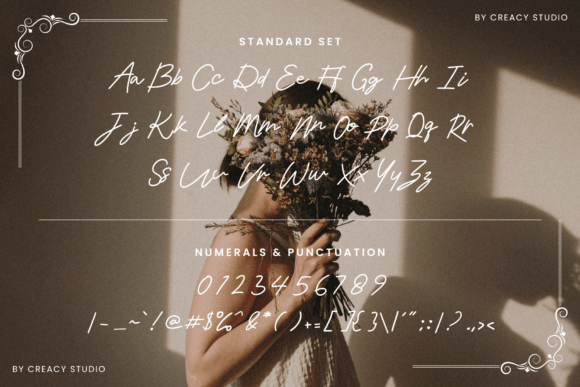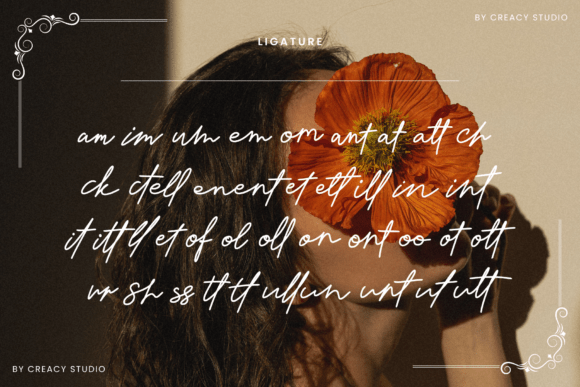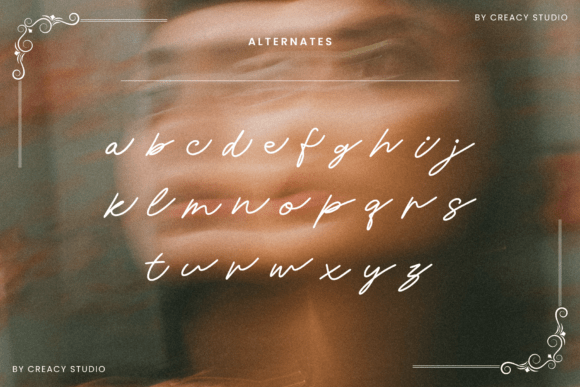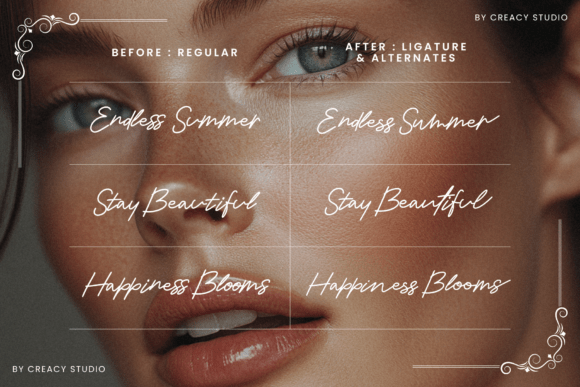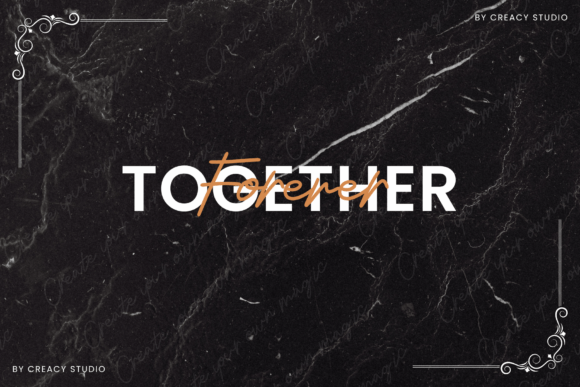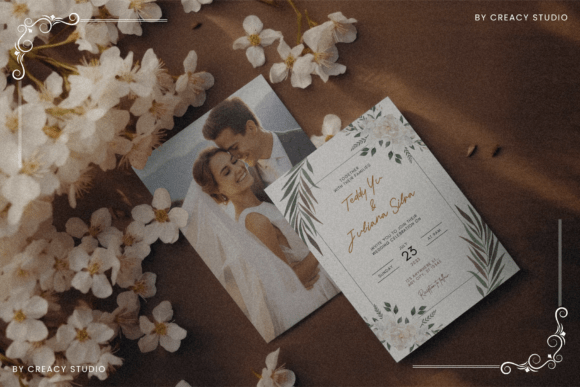
✨ Introduction: Couture Script – Where Elegance Meets Timeless Beauty ✨
Unleash sophistication with Couture Script, a font that embodies grace, style, and effortless luxury. Designed to capture the essence of high fashion and refined elegance, this handwritten script flows seamlessly, making every stroke feel personal and distinctive.
💎 Chic & Sophisticated – Exudes Class and Refinement
Couture Script is the epitome of luxury and refinement. Its elegant strokes and beautiful curves make it perfect for branding, invitations, and high-end designs. Whether you’re creating a logo for a fashion brand, designing an invitation for a high-society wedding, or crafting a luxury product label, Couture Script exudes class and sophistication.
This font is ideal for designers and crafters who want to add a touch of glamour and exclusivity to their work. With Couture Script, you can create stunning designs that evoke the feeling of high-end fashion and luxury.
🎨 Graceful & Expressive – Delicate Curves and Flowing Strokes
Couture Script is characterized by its delicate curves and flowing strokes, creating an artistic yet polished look. This font is perfect for fashion labels, luxury packaging, and editorial spreads. The elegant strokes and beautiful curves of Couture Script will add a touch of sophistication and glamour to any design.
Whether you’re designing a fashion magazine spread, creating a luxury product label, or crafting a high-end brand identity, Couture Script is the perfect choice. This font is designed to be versatile and adaptable, making it suitable for a wide range of design applications.
✨ Versatile & Timeless – Adapts to Any Aesthetic
One of the standout features of Couture Script is its versatility. This font adapts beautifully to any aesthetic, whether you’re going for modern minimalism or vintage glamour. With Couture Script, you can create designs that are both timeless and trendy, making it a valuable addition to any designer’s toolkit.
Whether you’re designing for a fashion brand, creating luxury packaging, or crafting a high-end brand identity, Couture Script is the perfect choice. This font is designed to be timeless, making it suitable for designs that need to stand the test of time.
Elevate Your Brand’s Visual Presence with Couture Script
Are you ready to elevate your brand’s visual presence? With Couture Script, you can add a touch of elegance and exclusivity to your designs. This font is perfect for designers and crafters who want to create stunning designs that evoke the feeling of high-end fashion and luxury.
Couture Script is more than just a font – it’s a design statement. With its elegant strokes, beautiful curves, and flowing strokes, this font is designed to make a lasting impression. Whether you’re designing for a fashion brand, creating luxury packaging, or crafting a high-end brand identity, Couture Script is the perfect choice.
Key Features of Couture Script
- Elegant Strokes: Couture Script features elegant strokes that are perfect for creating high-end designs.
- Beautiful Curves: The font’s beautiful curves add a touch of sophistication and glamour to any design.
- Flowing Strokes: Couture Script’s flowing strokes create an artistic yet polished look.
- Versatile: This font adapts beautifully to any aesthetic, making it suitable for a wide range of design applications.
- Timeless: Couture Script is designed to be timeless, making it perfect for designs that need to stand the test of time.
Use Cases for Couture Script
- Fashion Branding: Couture Script is perfect for fashion brands that want to create a luxurious and high-end visual identity.
- Invitations: This font is ideal for creating high-society wedding invitations, luxury event invitations, and other high-end designs.
- Luxury Packaging: Couture Script is perfect for luxury packaging designs that require a touch of elegance and sophistication.
- Editorial Spreads: This font is great for editorial spreads in fashion magazines and other high-end publications.
| Font Name | Couture Script Font |
| Author | Creacy Studio |
Couture Script is a font that embodies elegance, style, and effortless luxury. With its elegant strokes, beautiful curves, and flowing strokes, this font is perfect for designers and crafters who want to create stunning designs that evoke the feeling of high-end fashion and luxury.
Whether you’re designing for a fashion brand, creating luxury packaging, or crafting a high-end brand identity, Couture Script is the perfect choice. This font is designed to be versatile, timeless, and adaptable, making it a valuable addition to any designer’s toolkit.
So why wait? Elevate your brand’s visual presence with Couture Script – the perfect blend of artistry and prestige.